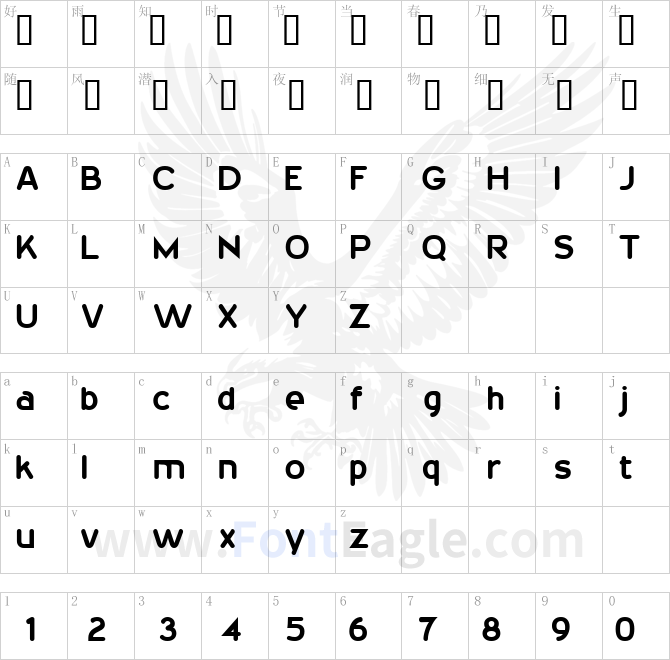
- Font name:20th Century Font
- Font Full Name:20th Century Font
20th-Century-Font is a great font, widely used in graphic design, single-page menu design, poster design and other fields, and is deeply loved by designers.20th-Century-Font download.